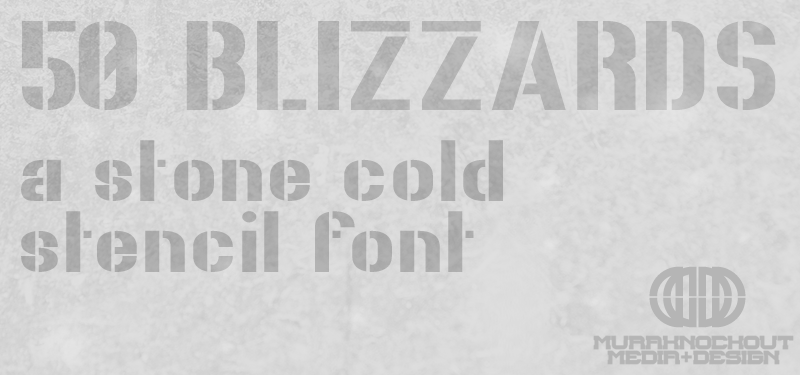
Preview and download 50 Blizzards Font. Created by MuraKnockout Media + Design in Fancy Stencil, Army styles with 100% Free license.
Check out my new Font Blog to stay up to see when I release new fonts! http://murafonts.blogspot.com/ ----------------------- This font started out as graffiti influenced, but developed into a Rough, Edgy Stencil Font. Perfect for Titles, Cartoon Designs, and anything that needs some Hard Stencilling! This is free to do with whatever you wish, personal or commercial. Just don't claim ownership, sell it, redistribute it, or be a jerk with it. It might be cool if you use the font to either credit MuraKnockout Media or Michael Muranaka, or show me how you used it! Enjoy! |